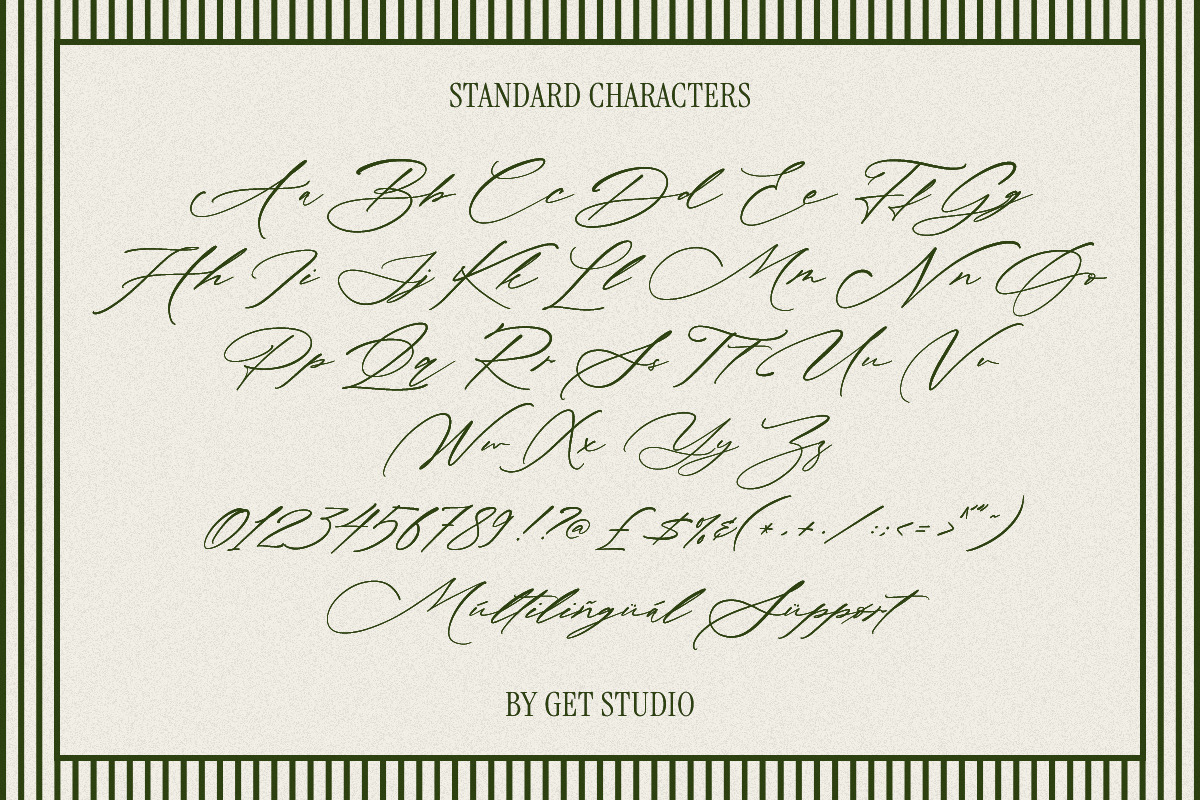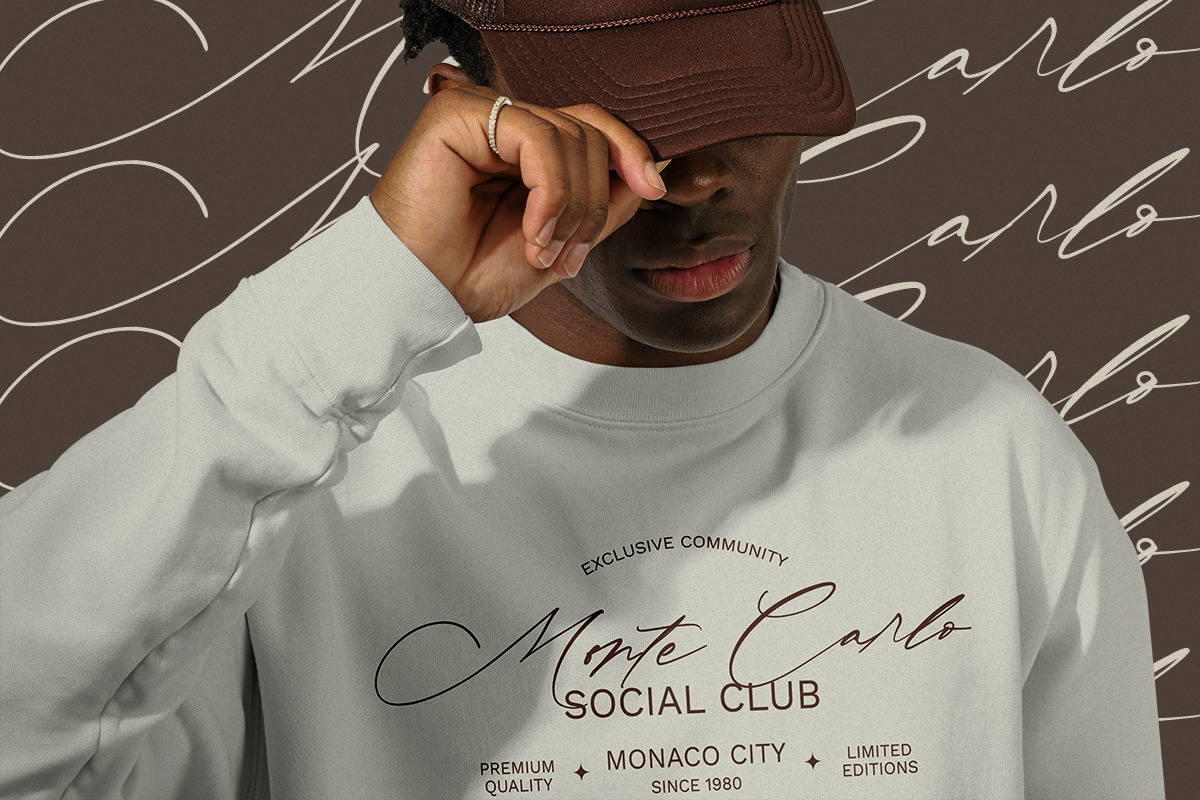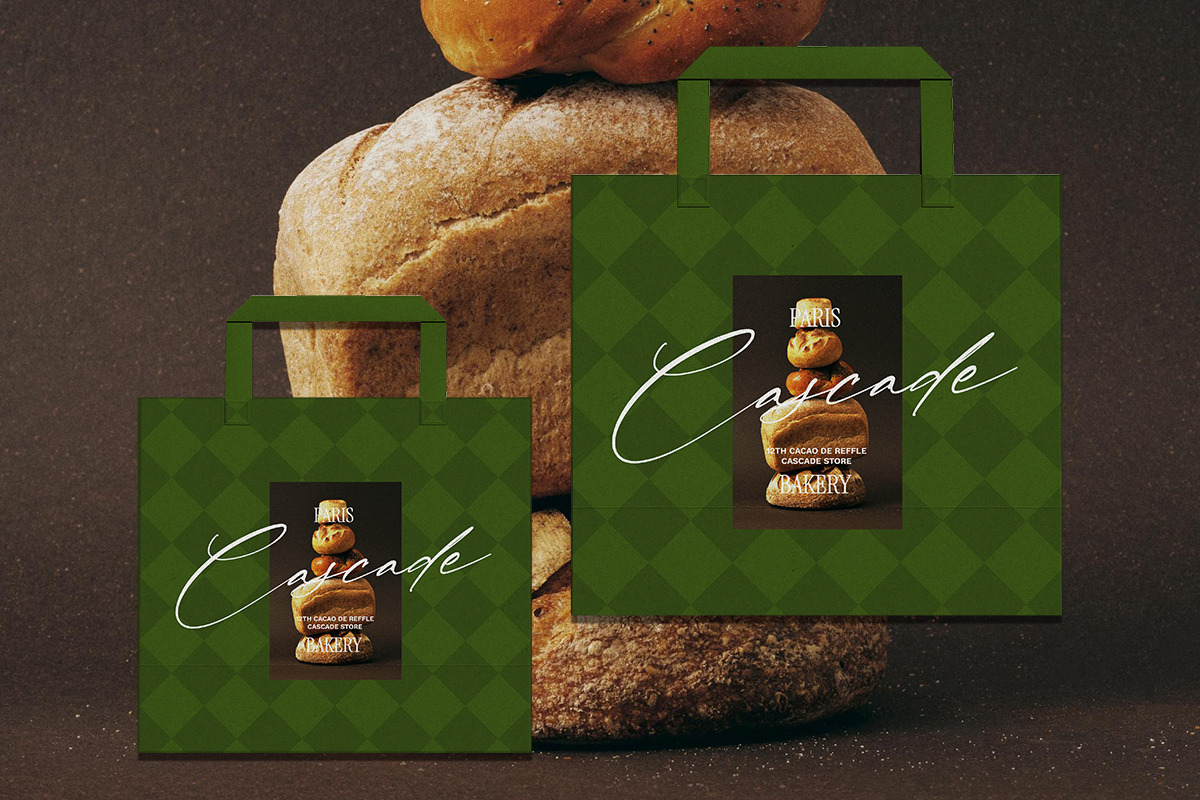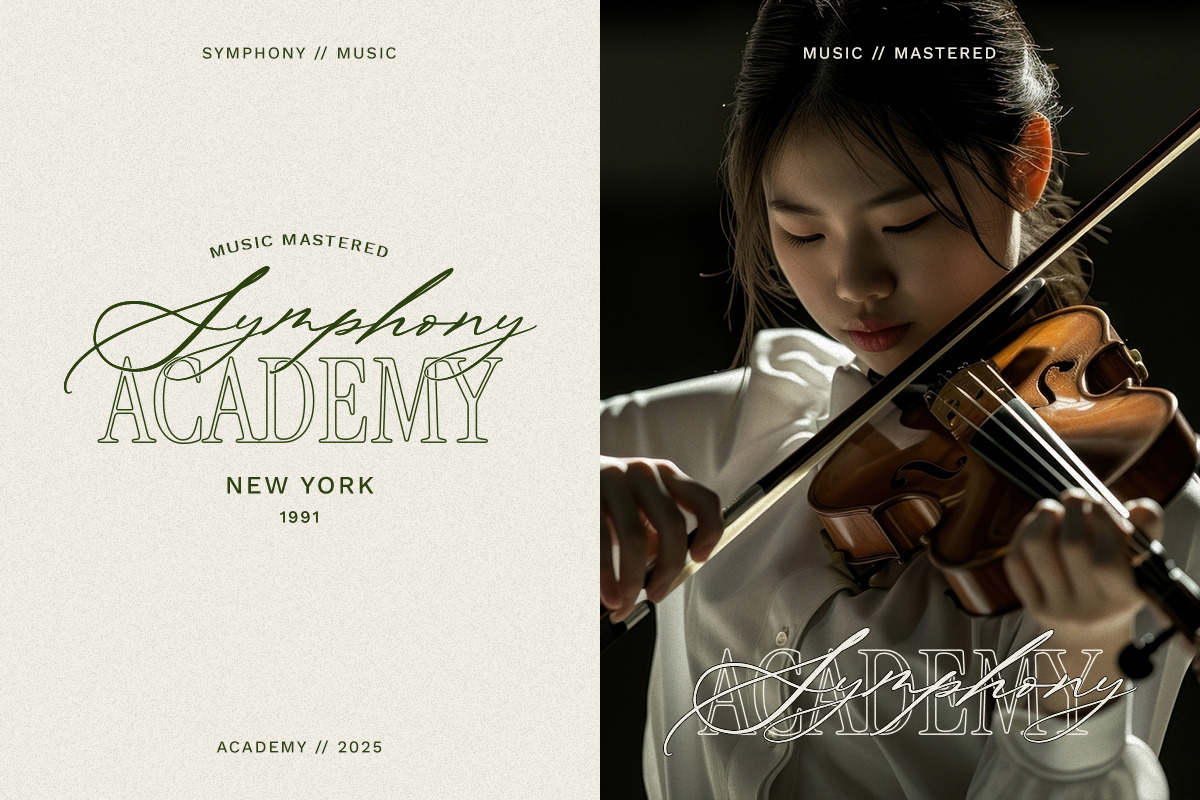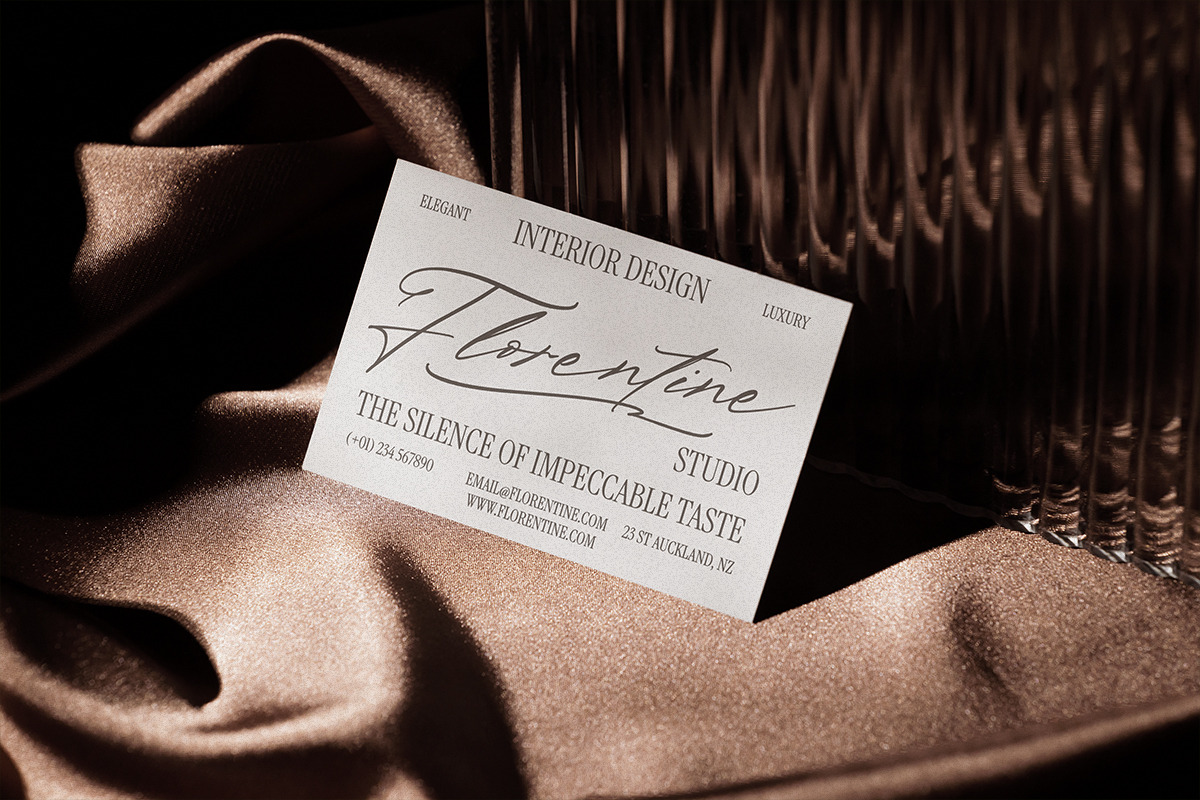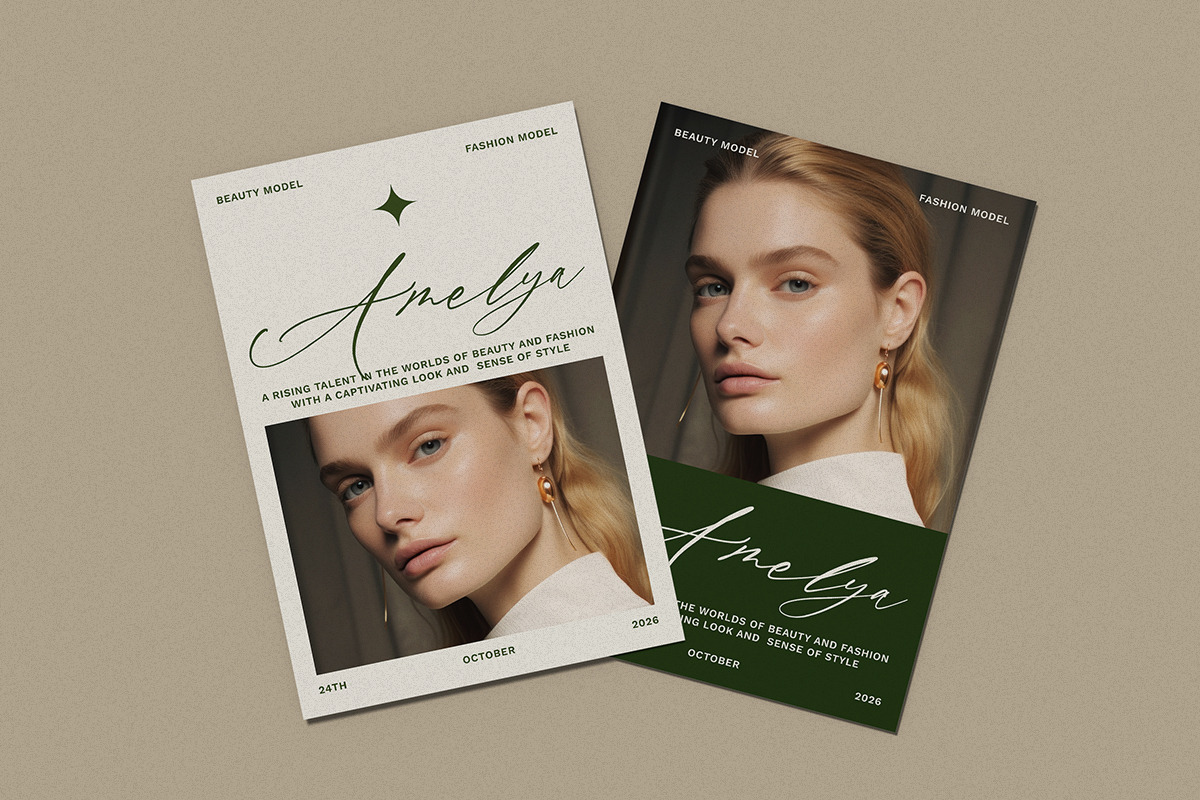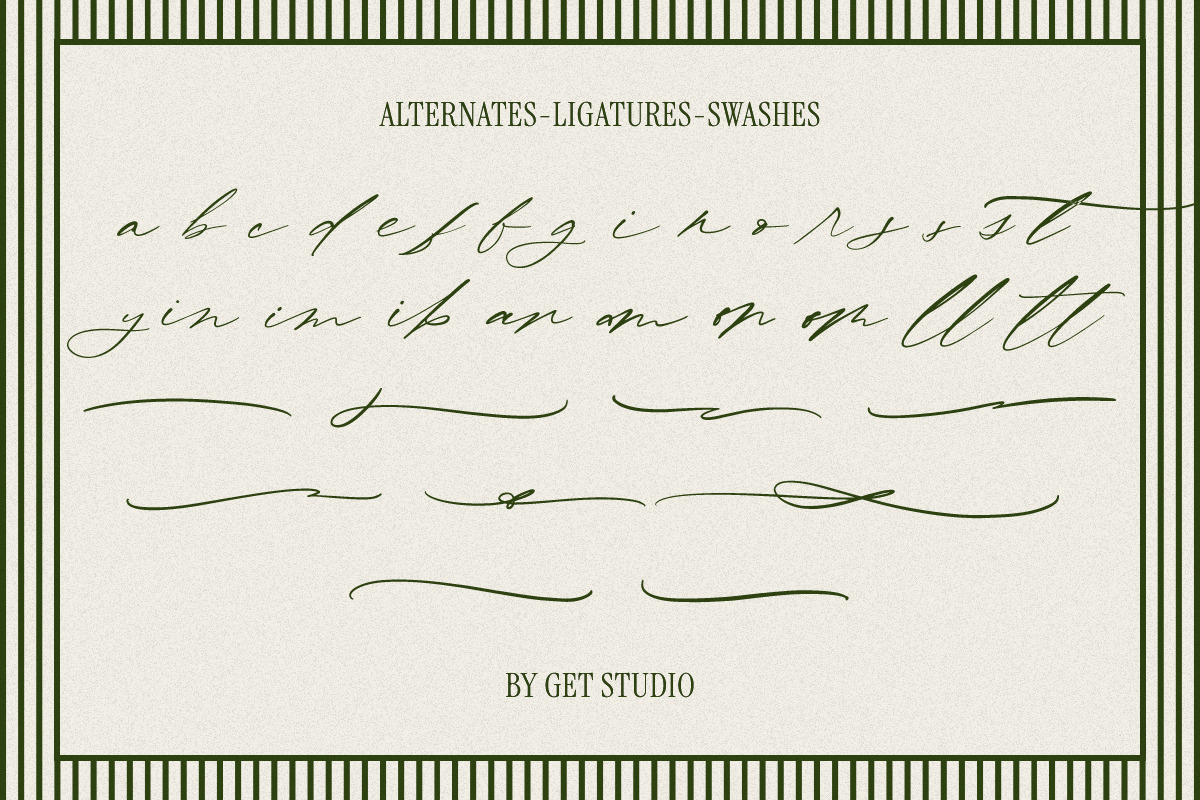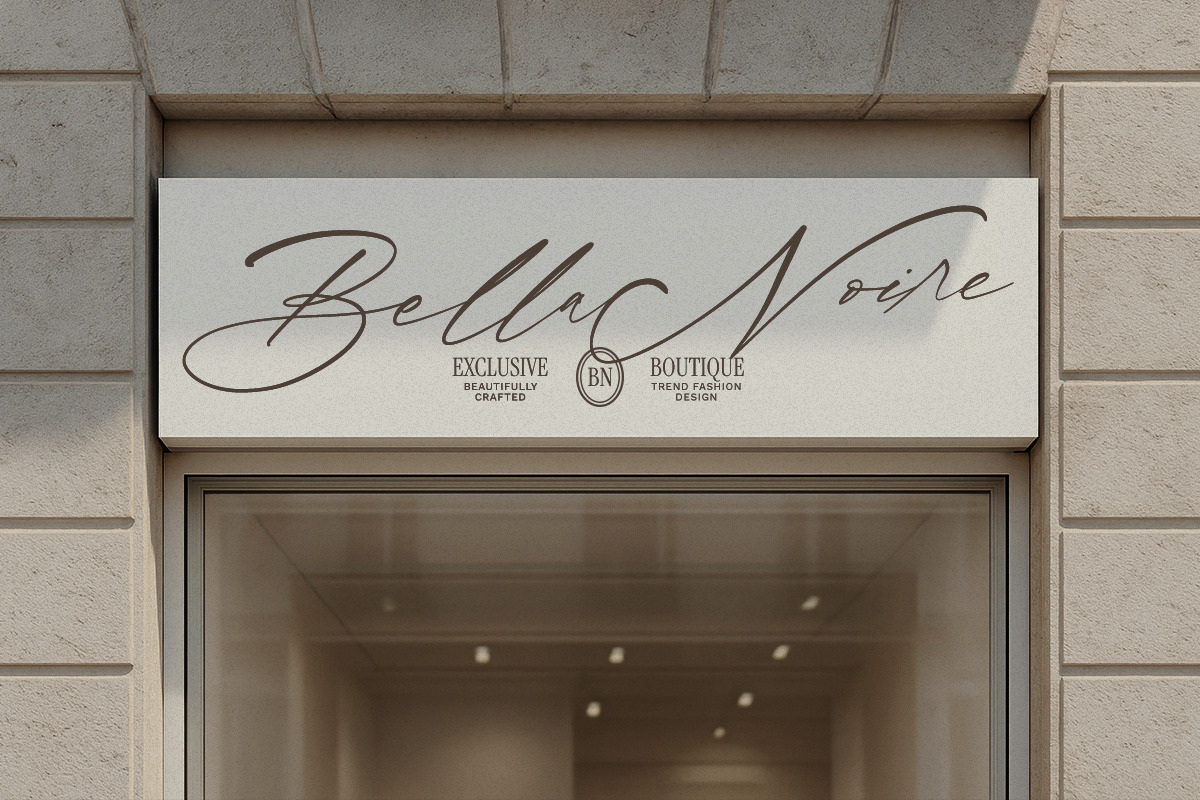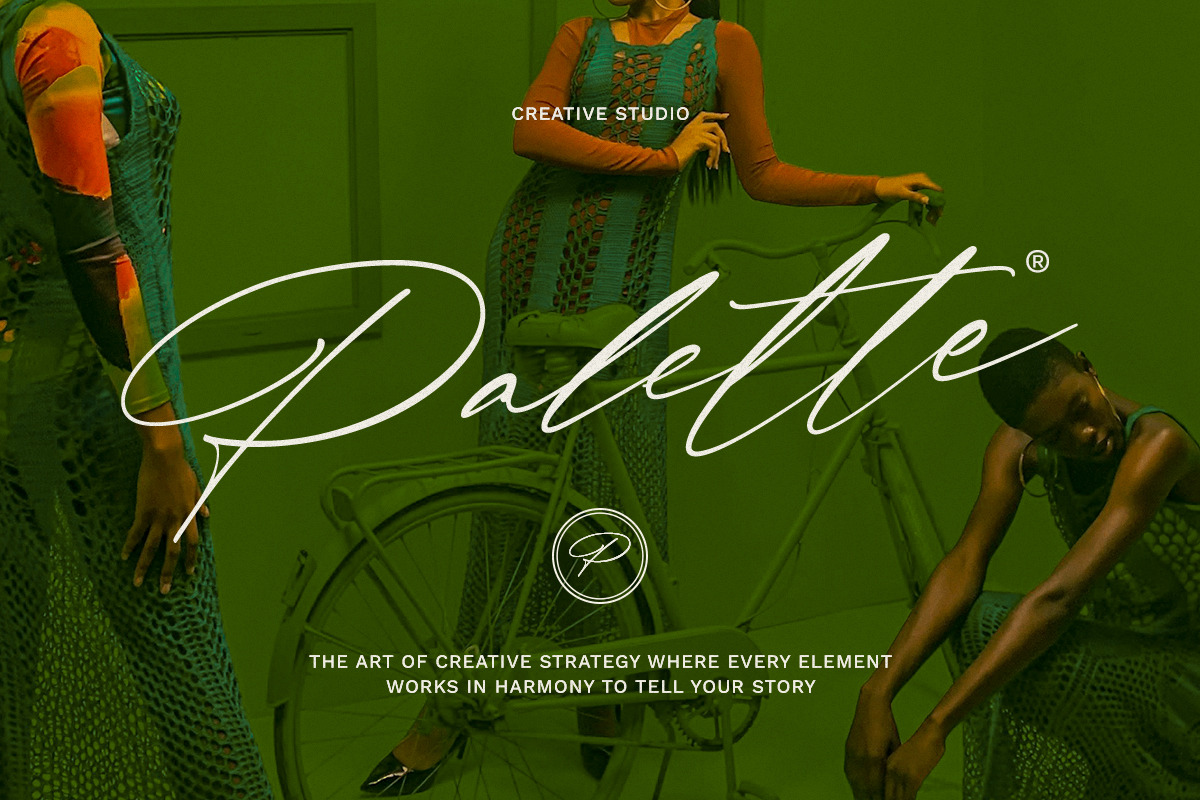
Prystoria Script
Prystoria Script is a luxury handwritten signature font that combines elegance, artistry, and timeless charm. Each curve is carefully designed to create a refined handwritten impression, perfect for high-end branding, elegant stationery, wedding invitations, logo design, packaging, and creative projects that demand sophistication.
With its flowing alternates, ligatures, and swashes, Prystoria Script gives your design a premium and exclusive touch.